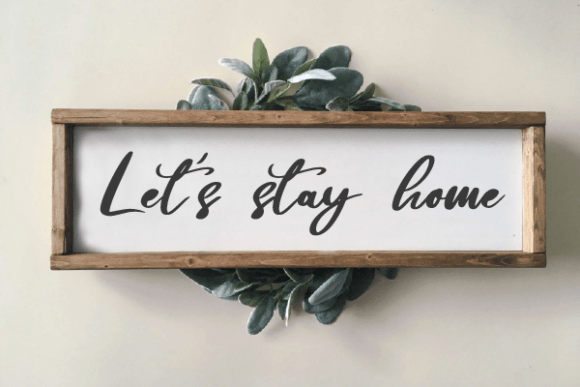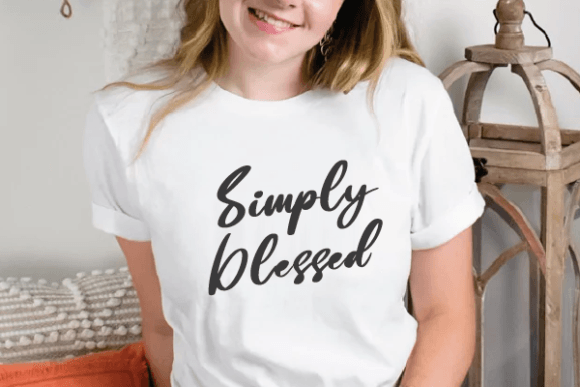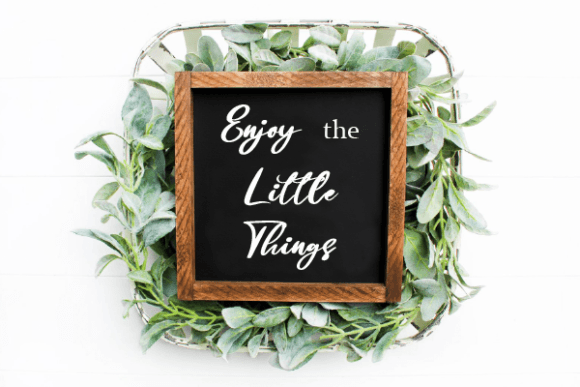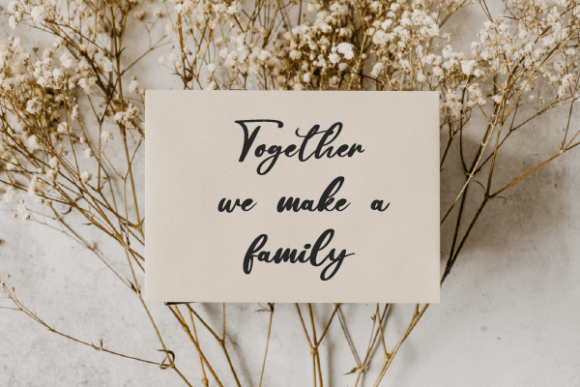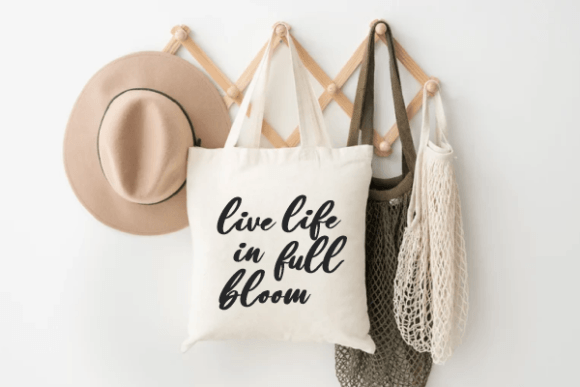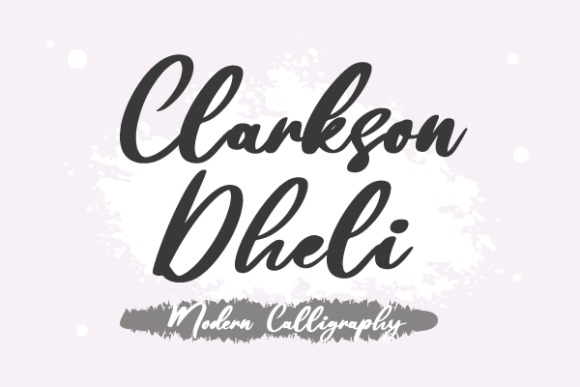
Introducing Clarkson Dheli Font: The Perfect Handwritten Touch for Your Designs
Are you a designer or crafter looking for a font that exudes elegance and charm? Look no further than Clarkson Dheli Font. This beautiful handwritten font is perfect for adding a personal touch to your designs, making them stand out from the crowd. In this article, we’ll explore the features and benefits of Clarkson Dheli Font, and how it can elevate your designs to the next level.
What is Clarkson Dheli Font?
Clarkson Dheli Font is a stunning handwritten font that feels equally charming and elegant. Its unique and flowing script makes it perfect for a variety of design applications, from wedding invitations and thank you cards to quotes, greeting cards, logos, and business cards. With Clarkson Dheli Font, you can add a touch of sophistication and whimsy to your designs, making them truly unforgettable.
Features of Clarkson Dheli Font
So, what makes Clarkson Dheli Font so special? Here are just a few of its key features:
• Handwritten touch: Clarkson Dheli Font has a beautiful, handwritten feel that adds a personal touch to your designs.
• Elegant and charming: This font exudes elegance and charm, making it perfect for designs that require a sophisticated look.
• Versatile: Clarkson Dheli Font can be used for a wide range of design applications, from wedding invitations to business cards.
• Easy to read: Despite its elegant and flowing script, Clarkson Dheli Font is easy to read, making it perfect for designs that require a clear and concise message.
Benefits of Using Clarkson Dheli Font
So, why should you choose Clarkson Dheli Font for your designs? Here are just a few benefits:
• Adds a personal touch: Clarkson Dheli Font adds a personal touch to your designs, making them feel more approachable and relatable.
• Stands out from the crowd: This font is unique and eye-catching, making your designs stand out from the crowd.
• Perfect for special occasions: Clarkson Dheli Font is perfect for special occasions, such as weddings, anniversaries, and birthdays.
Design Ideas Using Clarkson Dheli Font
Clarkson Dheli Font is perfect for a wide range of design applications. Here are just a few ideas to get you started:
• Wedding invitations: Use Clarkson Dheli Font to create beautiful and elegant wedding invitations.
• Thank you cards: Add a personal touch to your thank you cards with Clarkson Dheli Font.
• Quotes: Use Clarkson Dheli Font to create inspiring and motivational quotes.
• Greeting cards: Create beautiful and unique greeting cards with Clarkson Dheli Font.
• Logos: Use Clarkson Dheli Font to create a unique and memorable logo for your business.
• Business cards: Add a touch of elegance and sophistication to your business cards with Clarkson Dheli Font.
Font Name Clarkson Dheli Font
Author fiqiart
In conclusion, Clarkson Dheli Font is a beautiful and elegant handwritten font that is perfect for adding a personal touch to your designs. With its unique and flowing script, it’s perfect for a wide range of design applications, from wedding invitations to business cards. Whether you’re a designer or crafter, Clarkson Dheli Font is a great choice for anyone looking to add a touch of sophistication and whimsy to their designs.